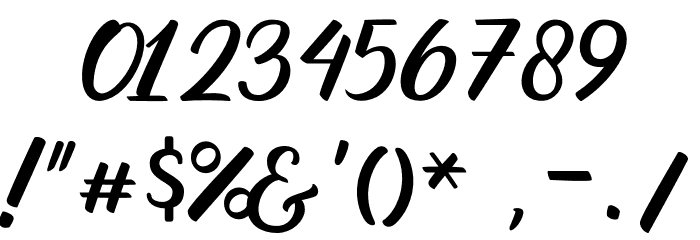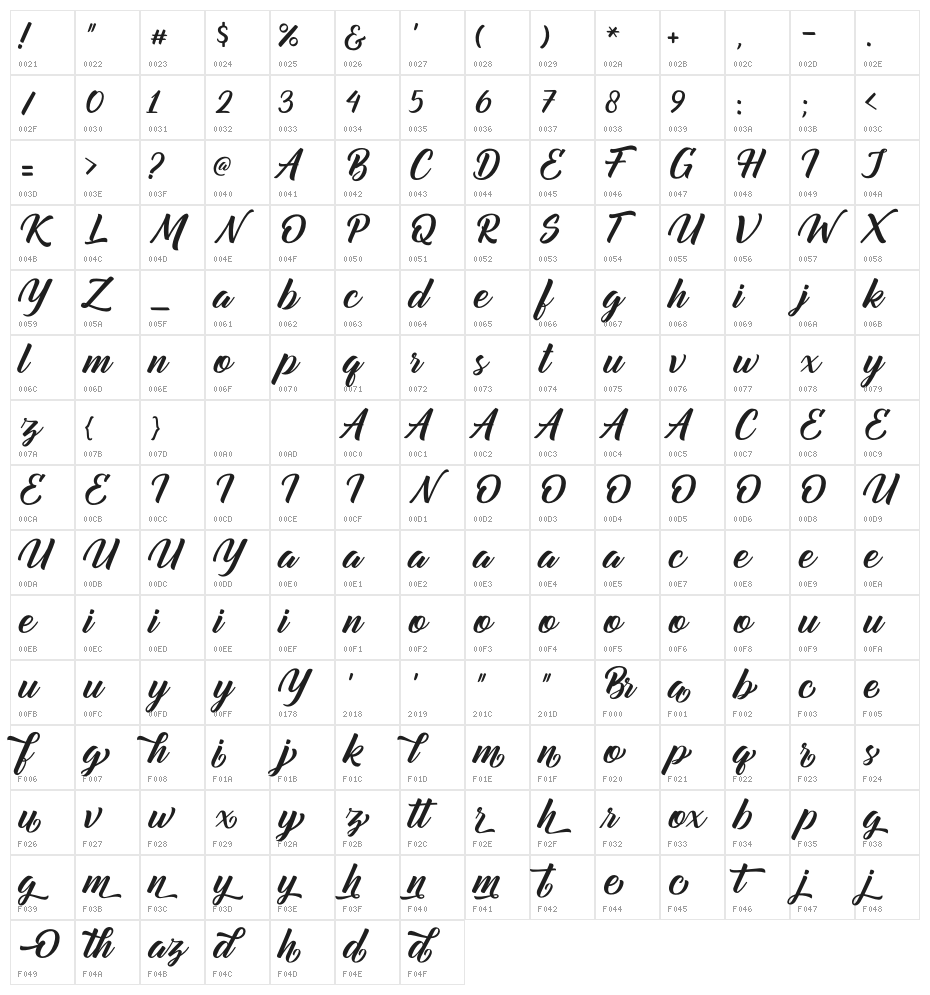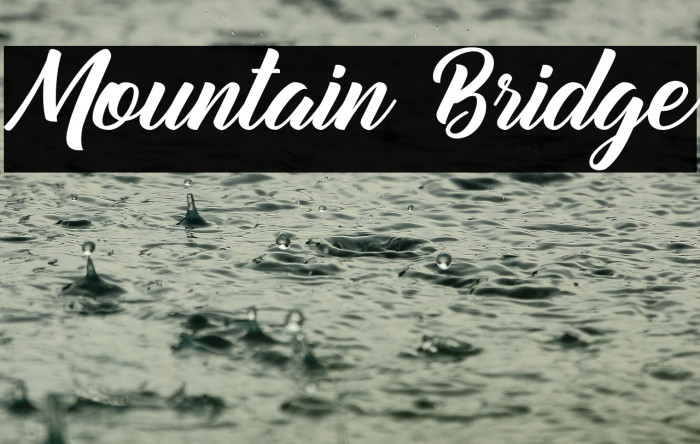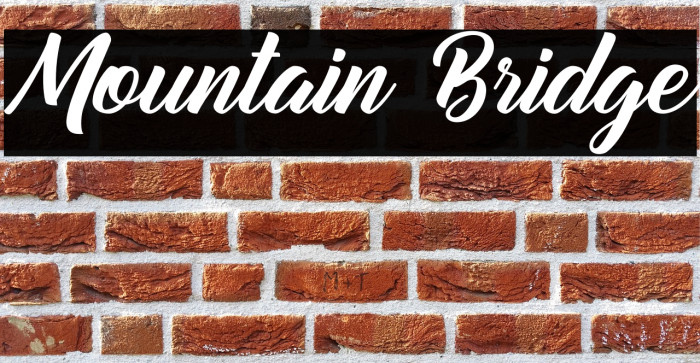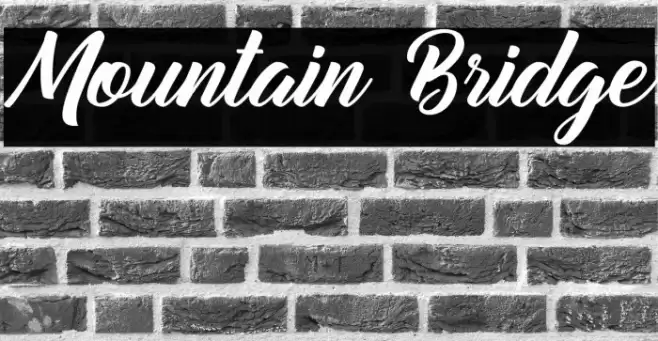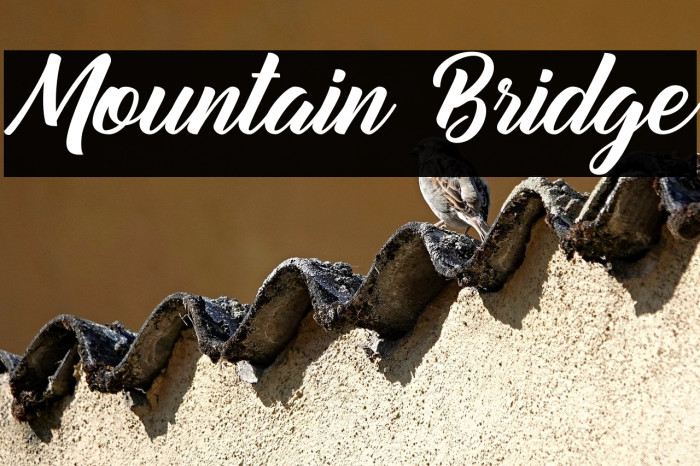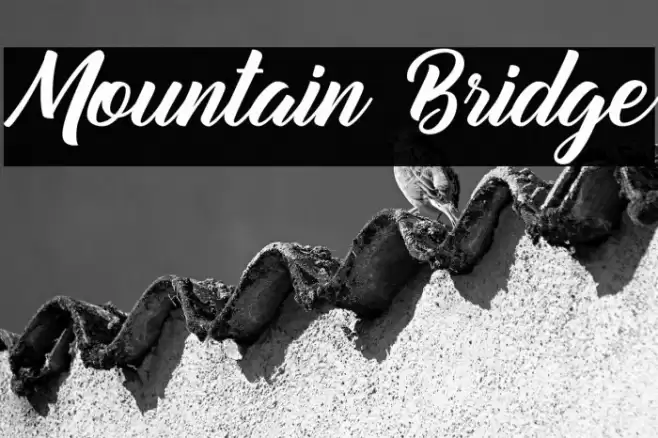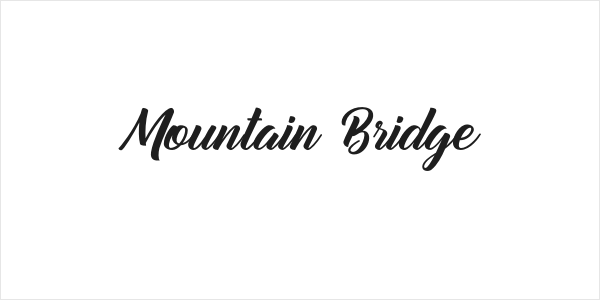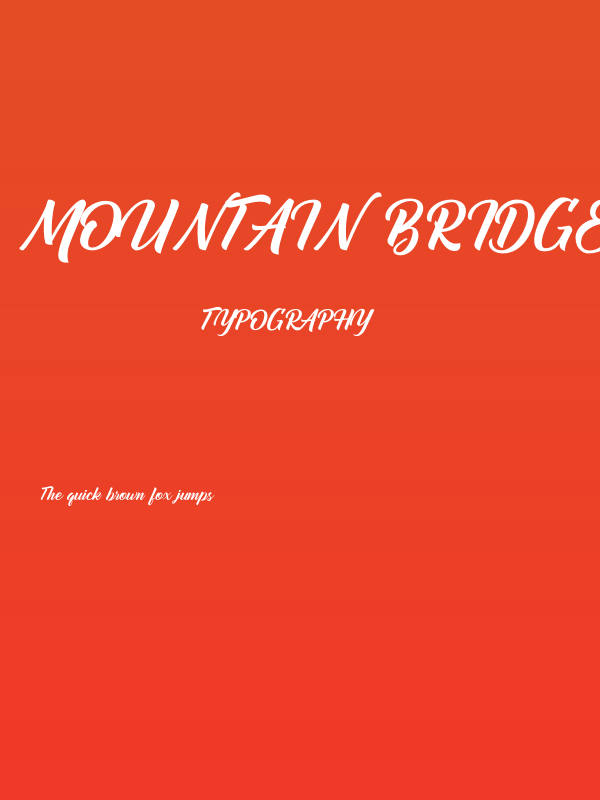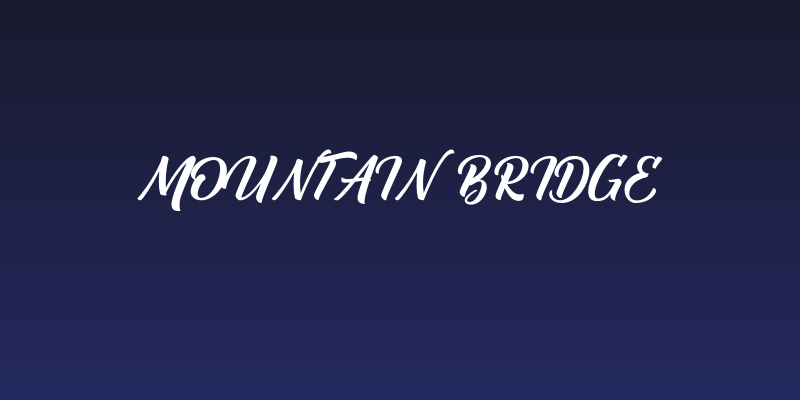
Mountain Bridge Font
Mountain Bridge Description
This font features a dynamic and flowing script style, characterized by its elegant and cursive letterforms. The uppercase letters are bold and sweeping, with a slight slant that adds a sense of motion and grace. The lowercase letters maintain the same fluidity, with smooth connections between characters that enhance readability. The numerals are consistent with the overall style, offering a harmonious blend of curves and lines. Special characters are thoughtfully designed, complementing the aesthetic with their stylish and cohesive appearance. This font exudes a sense of sophistication and creativity, making it ideal for projects that require a personal and artistic touch.